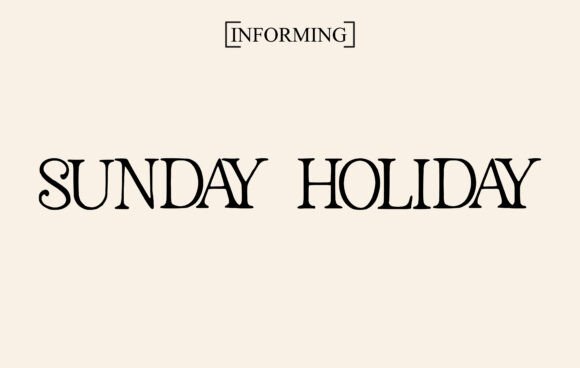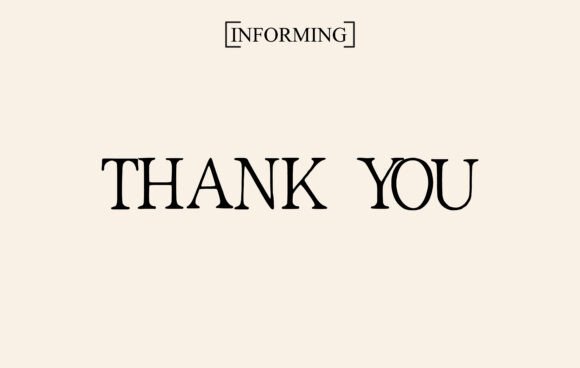
Discover the Heavenly Beauty of Angelic Whisper Font
Are you tired of using the same old fonts for your creative projects? Look no further! Introducing the Angelic Whisper Font, a stunning typeface designed to elevate your designs to new heights. With its elegant and legible style, this font is perfect for a wide range of applications, from magazine headlines to wedding invitations, and everything in between.
A Font Designed for Creative Freedom
The Angelic Whisper Font is crafted to be a true favorite among designers and crafters. Its unique style and versatility make it an excellent choice for anyone looking to add a touch of sophistication and elegance to their work. Whether you’re designing a logo, creating a social media post, or crafting a wedding invitation, this font is sure to impress.
Legible and Versatile
One of the standout features of the Angelic Whisper Font is its exceptional legibility. Whether you’re using it as a title or body text, this font is easy to read and looks great in a variety of contexts. Its clean lines and delicate curves make it perfect for designs where clarity and style are paramount.
The Angelic Whisper Font is incredibly versatile, making it suitable for a wide range of design projects. Here are just a few ideas to get you started:
- Magazine headlines: Add a touch of elegance to your magazine spreads with this beautiful font.
- T-shirts: Create stunning apparel designs that will stand out from the crowd.
- Social media: Elevate your social media posts with a font that’s sure to grab attention.
- Branding: Use the Angelic Whisper Font to create a cohesive and sophisticated brand identity.
- Wedding invitations: Add a touch of romance and whimsy to your wedding stationery.
- Cards: Create beautiful greeting cards for any occasion.
Why Choose Angelic Whisper Font?
With so many fonts available, why choose the Angelic Whisper Font? Here are just a few reasons:
- Unique style: This font has a distinctive style that’s sure to set your designs apart.
- Exceptional legibility: The Angelic Whisper Font is easy to read, making it perfect for body text and titles.
- Versatility: Use this font for a wide range of design projects, from print to digital.
- Elegance: Add a touch of sophistication and elegance to your designs with this beautiful font.
Tips for Using Angelic Whisper Font
To get the most out of the Angelic Whisper Font, here are a few tips:
- Experiment with font sizes: This font looks great in a variety of sizes, from large titles to smaller body text.
- Play with font colors: Try using different colors to add depth and interest to your designs.
- Pair with other fonts: Experiment with pairing the Angelic Whisper Font with other fonts to create a unique and eye-catching design.
The Angelic Whisper Font is a stunning typeface that’s sure to become a favorite among designers and crafters. With its elegant style, exceptional legibility, and versatility, this font is perfect for a wide range of design projects. Whether you’re creating a magazine headline, designing a wedding invitation, or crafting a social media post, the Angelic Whisper Font is sure to elevate your designs to new heights.